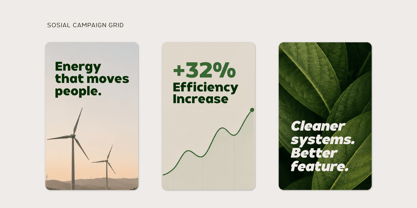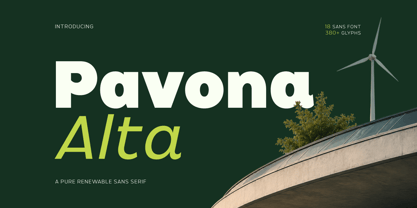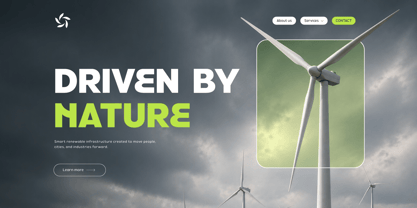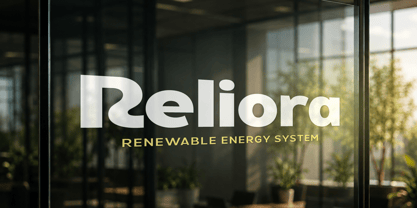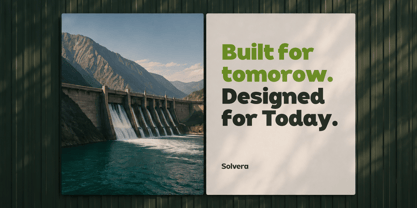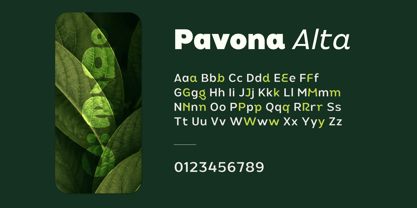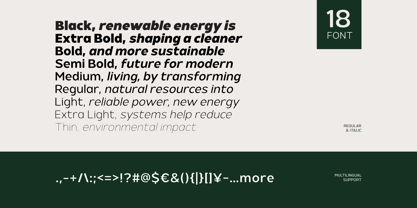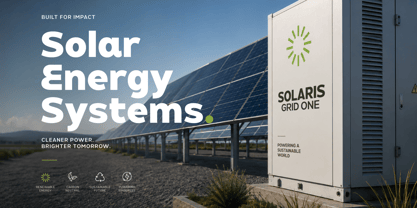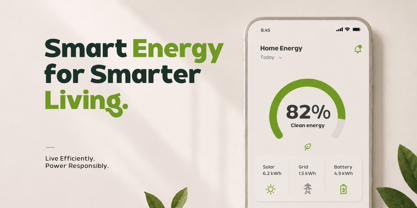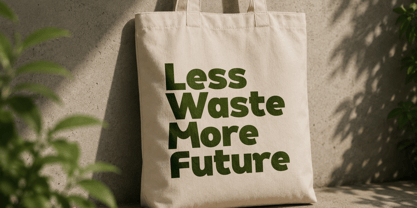
Pavona Alta
Pavona Alta - Pure Renewable Sans is a modern sans serif typeface designed to create a clean, professional, and future-forward visual identity. Featuring strong geometric letterforms with elegant minimal details, this font delivers a trustworthy and innovative appearance - perfect for brands focused on renewable energy, sustainability, and green technology. Its balanced structure ensures excellent readability while maintaining a premium modern aesthetic across digital and print applications.
This typeface is ideal for renewable energy branding, eco-tech startups, ESG campaigns, sustainable business websites, solar power projects, and modern corporate presentations. The visual character communicates innovation, environmental awareness, and long-term sustainability in a sleek and contemporary way.
Featuring 18 font styles, 380+ glyphs, multilingual support, and a versatile sans serif system, Pavona Alta gives designers the flexibility to build strong and cohesive brand identities. Its clean modern aesthetic makes it an excellent choice for green industry projects and future-focused design systems.
- Multilingual Support: Fully supports 85+ languages, including:
Afrikaans, Albanian, Asu, Basque, Bemba, Bena, Breton, Catalan, Chiga, Cornish, Croatian, Czech, Danish, Dutch, Embu, English, Esperanto, Estonian, Filipino, Finnish, French, Friulian, Galician, Gusii, Hungarian, Indonesian, Irish, Italian, Kabuverdianu, Kalenjin, Kamba, Kikuyu, Kinyarwanda, Latvian, Lithuanian, Lower Sorbian, Luo, Luxembourgish, Luyia, Machame, Makhuwa-Meetto, Makonde, Malagasy, Maltese, Manx, Meru, Morisyen, North Ndebele, Norwegian Bokmål, Norwegian Nynorsk, Nyankole, Oromo, Polish, Portuguese, Quechua, Romanian, Romansh, Rombo, Rundi, Rwa, Samburu, Sango, Sangu, Scottish Gaelic, Sena, Serbian, Shambala, Shona, Slovak, Slovenian, Soga, Somali, Spanish, Swahili, Swedish, Swiss German, Taita, Teso, Turkish, Upper Sorbian, Uzbek (Latin), Volapük, Vunjo, Walser, Zulu.